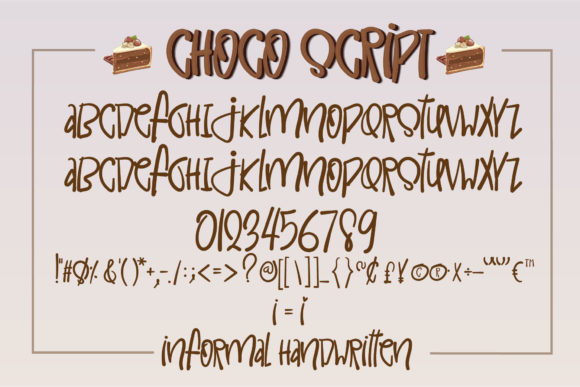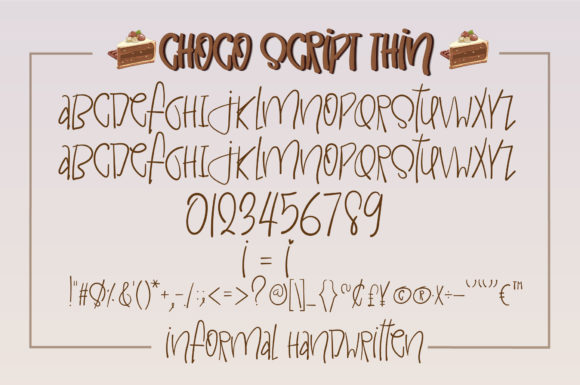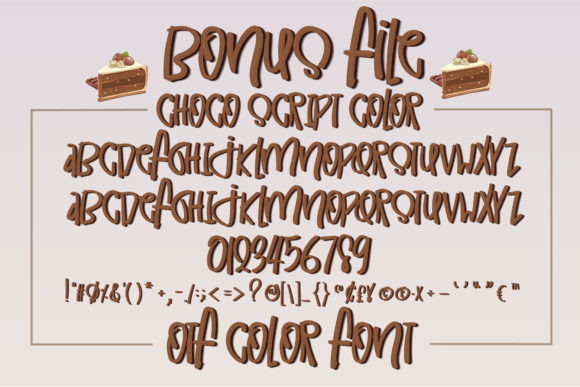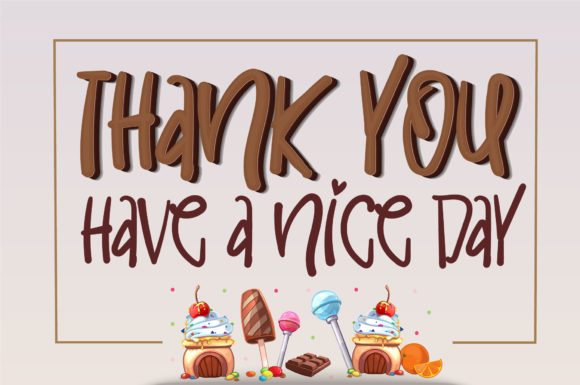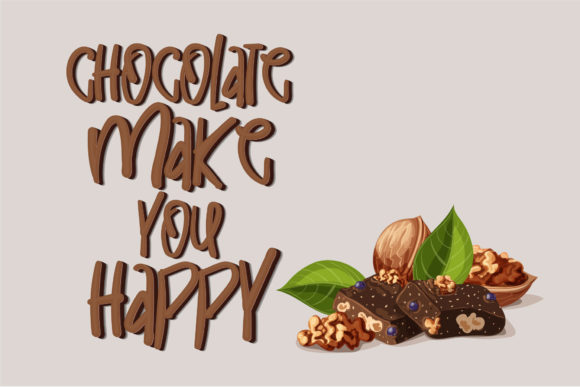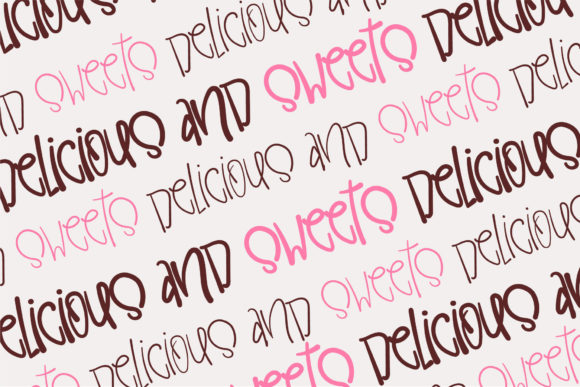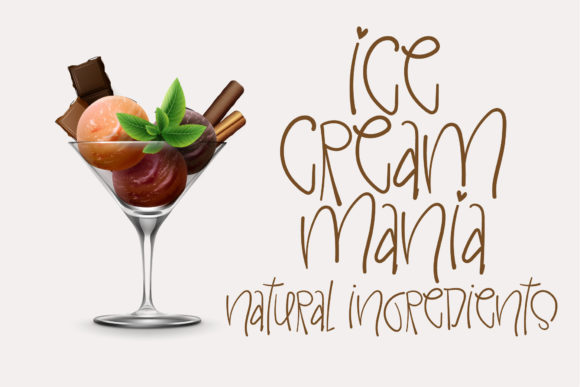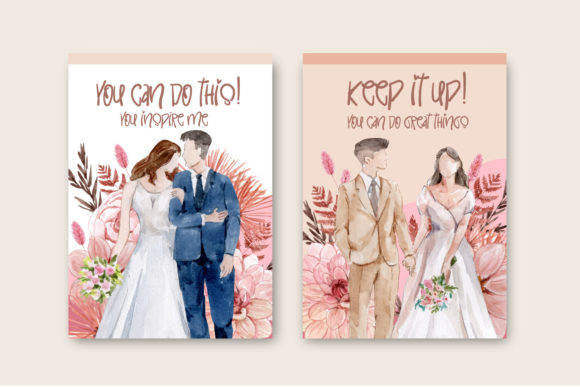
Choco Script Font
About Choco Script Font
Choco Script is a cool, friendly and informal handwritten font. Whether you use it for cartoon related designs, children games or just any creation that requires a joyful touch, this font will be an amazing choice.